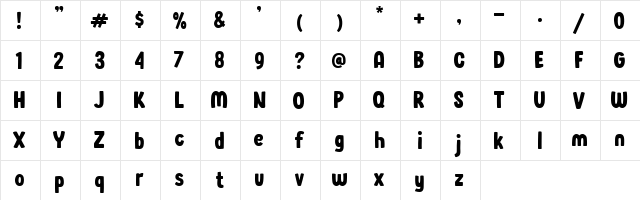
Wonder Boys Regular
| Designer | zamronihamzah |
Design Context for Wonder Boys Typeface
Wonder Boys takes a measured approach to typography — its balanced proportions and neutral character make it a reliable workhorse for both digital and print work.